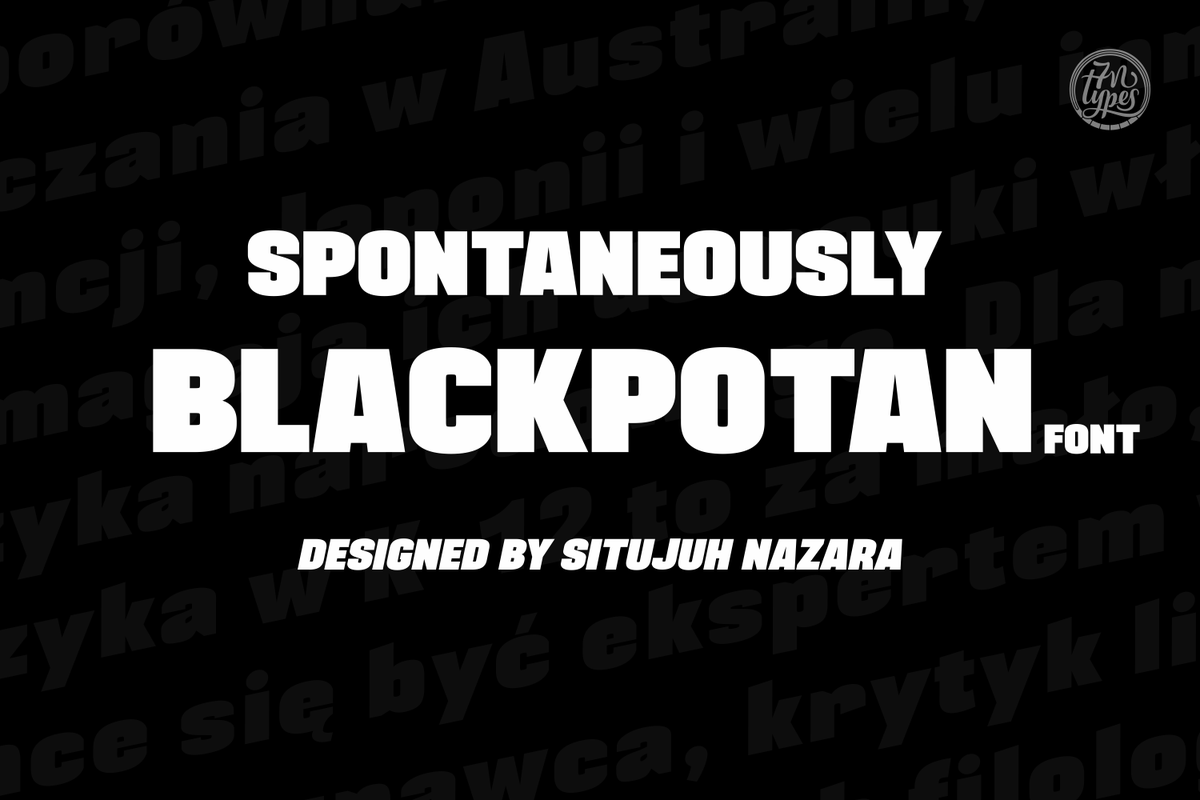
The Perfect Font for Making a Statement
Have you ever been brainstorming a new project, and suddenly, the perfect idea hits you like a ton of bricks? The excitement is palpable, and you can’t wait to bring your vision to life. As designers, we’ve all been there – and it’s moments like these that make our job so rewarding. But, how do we take that initial spark and turn it into something truly remarkable? The right font can make all the difference.
Enter the Blackplotan Font – a strong, bold, and expressive sans font that’s perfect for making a statement. Its big, eye-catching letters are ideal for headlines, and its versatility makes it a valuable addition to any designer’s toolkit. Whether you’re working on a bold new campaign or a striking visual identity, the Blackplotan Font is sure to help you make a lasting impression.
• Unique Characteristics: The font features a unique blend of modern and vintage elements, with a distinctive aesthetic that is both elegant and sophisticated.
• Kerning and Ligatures: The font includes advanced kerning and ligature features, ensuring that text sets are optimized for readability and visual appeal.
Blackplotan Font Review
Overall, I’m impressed with the Blackplotan font. ✨ Its bold and modern design makes it perfect for titles and headings in various projects. The font is highly legible, even at smaller sizes, which is a significant advantage for digital content.
The font has a sleek and sophisticated feel to it, making it suitable for a wide range of applications, from fashion and technology to corporate and business communications. ✨ The Blackplotan font is highly versatile and can be used in both print and digital media.
However, I do have a few concerns with the font. ⚠️ Firstly, the font lacks a significant amount of language support, which may be a limitation for designers who frequently work with non-English scripts. Additionally, the font does not include a comprehensive character set, which may cause issues for designers who need to work with special characters or symbols.
Despite its limitations, the Blackplotan font is an excellent choice for designers who need a modern and bold font for their projects. While it may not be the best option for designers who frequently work with non-English scripts, it’s a great choice for designers who need a versatile and highly legible font for digital and print media.
• Modern and bold design
• Highly legible at smaller sizes
• Suitable for digital and print media
• Excellent for titles and headings
• Supports a wide range of applications
Blackplotan Font: A Practical Application Guide
For a more professional look, pair Blackplotan with a bold font for headings and a clean sans-serif font for body text.
For a more polished look, use Blackplotan in conjunction with layer styles and effects to add depth and interest to your design.
For a more engaging presentation, use Blackplotan to create eye-catching headings and subheadings.
Blackplotan Font is perfect for:
• Designing luxury brands and products.
• Creating high-end fashion and beauty marketing materials.
• Developing sophisticated business and financial documents.
Remember to use Blackplotan in moderation to avoid overwhelming your audience.